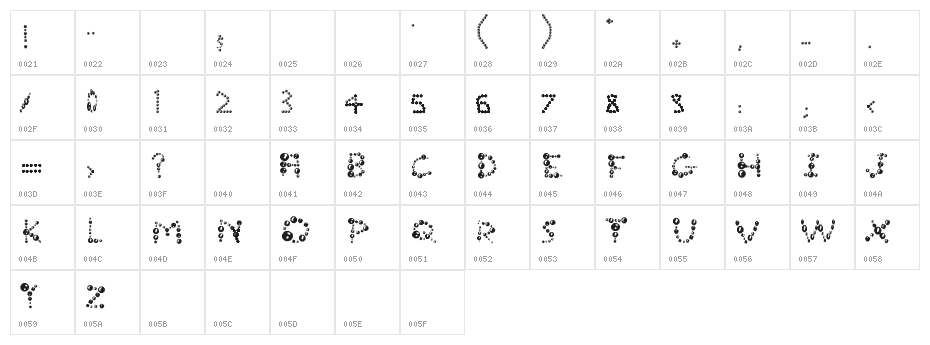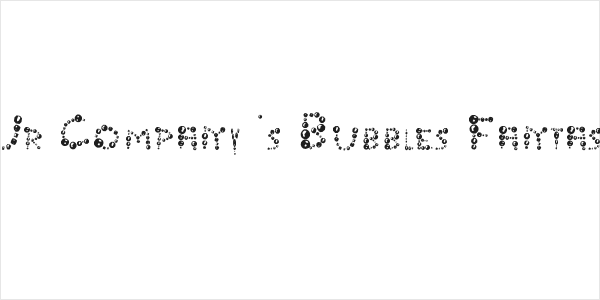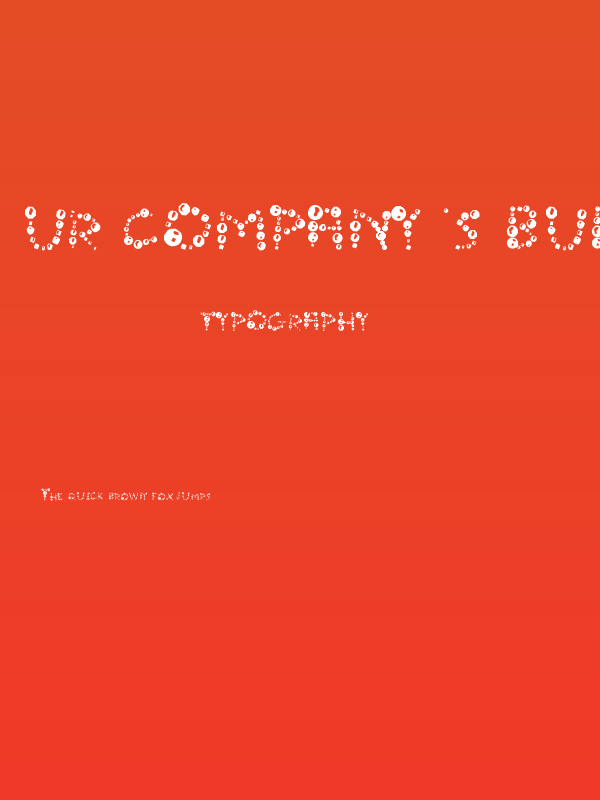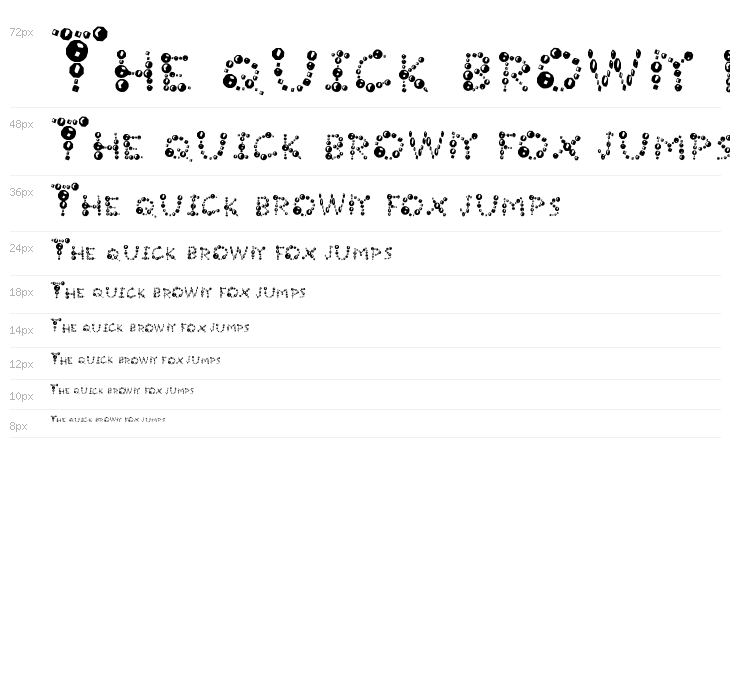
Ur Company's Bubbles Fantasy Font
Ur Company's Bubbles Fantasy Description
This playful and whimsical font is characterized by its unique bubble-like design, where each character is composed of small, circular shapes that resemble bubbles. The font exudes a sense of fun and creativity, making it ideal for projects that require a lighthearted and imaginative touch. The characters are evenly spaced, and the circular elements vary in size, adding a dynamic and lively feel to the text. The font maintains legibility despite its decorative nature, making it suitable for both display and informal text settings. Its distinctive style is perfect for capturing attention and conveying a sense of joy and playfulness.
| Overall Style | Whimsical |
| Proposed Projects | Ideal for children's books, party invitations, playful branding, and creative posters. |